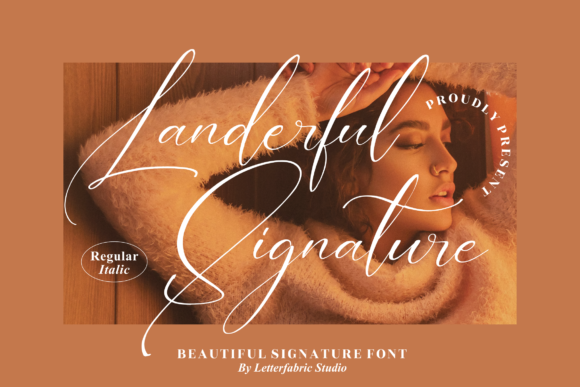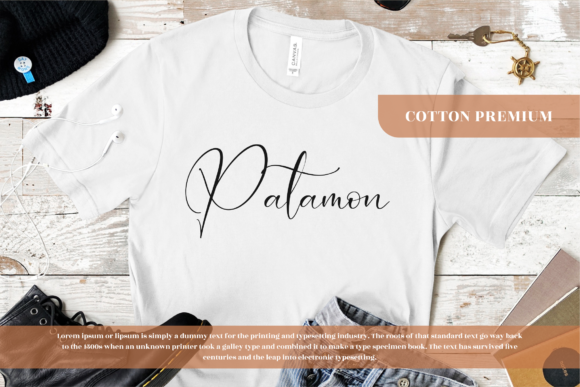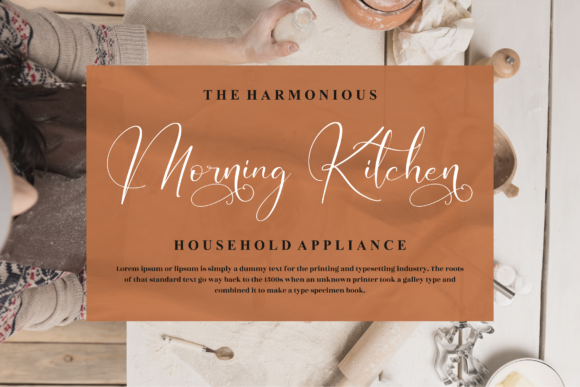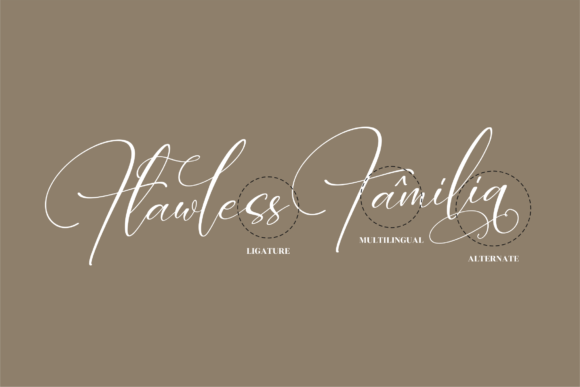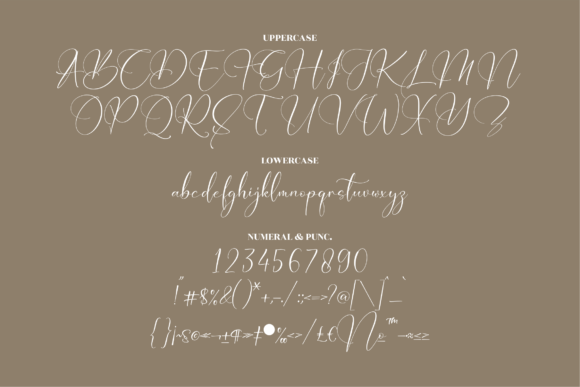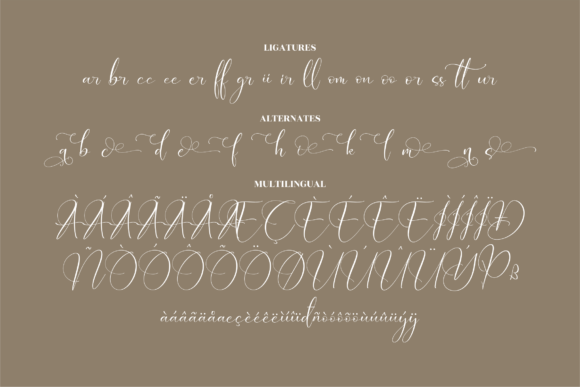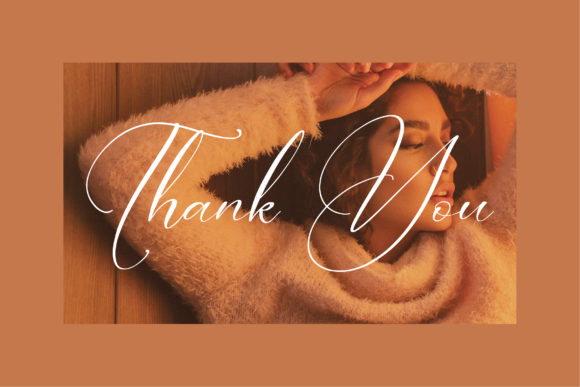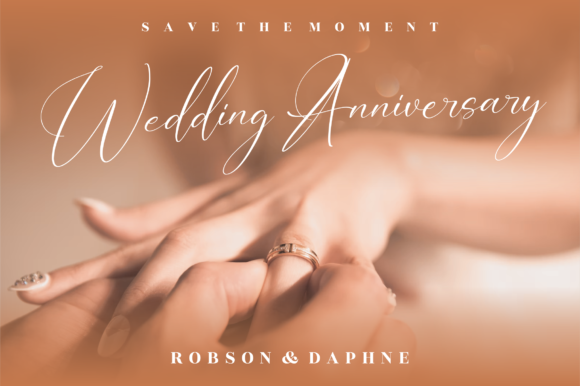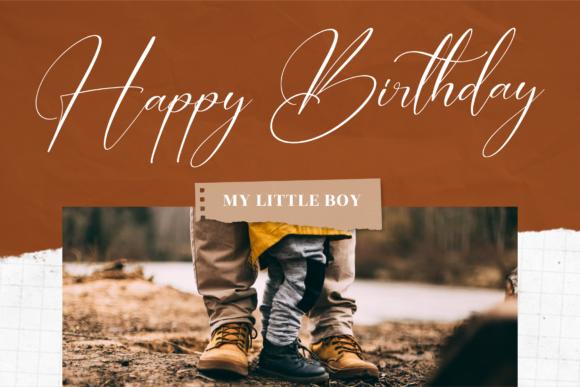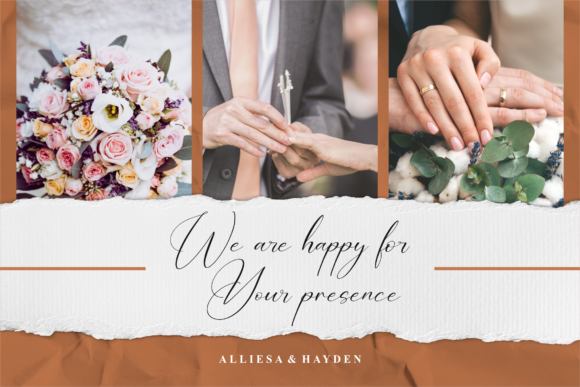
Landerful Signature Font
About Landerful Signature Font
Landerful Signature is a stylish calligraphy typeface with characters that dance along the baseline. It will add a luxury spark to any design project that you wish to create! This font is PUA encoded which means you can access all glyphs and swashes with ease!